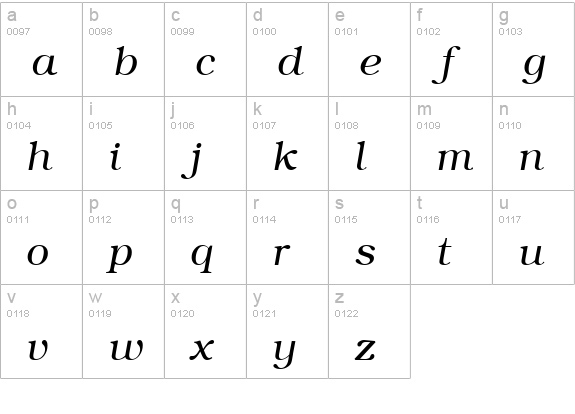
QTBookmann Italic Font Details
QTBookmann Italic is a distinctive, italic variant in the QTBookmann typeface family \xE2\x80\x94 well suited to design and typography projects.
QTBookmann Italic is a stunning and elegant font that exudes sophistication and grace. Its delicate and slanted letterforms add a touch of flair to any project, making it perfect for creating eye-catching designs that demand attention. This font's unique italic style lends itself well to a variety of applications, from elegant invitations and wedding stationery to luxury branding and editorial design. Its timeless appeal is sure to impress and leave a lasting impression. With its smooth curves and refined letter shapes, QTBookmann Italic effortlessly combines classic charm with a contemporary twist. Each character is meticulously crafted, ensuring legibility and readability across different sizes and mediums. What sets QTBookmann Italic apart is not only its exceptional design but also its availability for free. Yes, you read that right! This remarkable font is freely available to download at FontsMarket.com. Now, you can elevate your projects without breaking the bank. Whether you're a professional designer or a typography enthusiast, QTBookmann Italic is a must-have addition to your font collection. Its versatility and sheer beauty will inspire creativity and add a touch of elegance to any design endeavor. So why wait? Experience the beauty and sophistication of QTBookmann Italic today by downloading it for free at FontsMarket.com. Unleash your creativity and let this font elevate your designs to new heights.